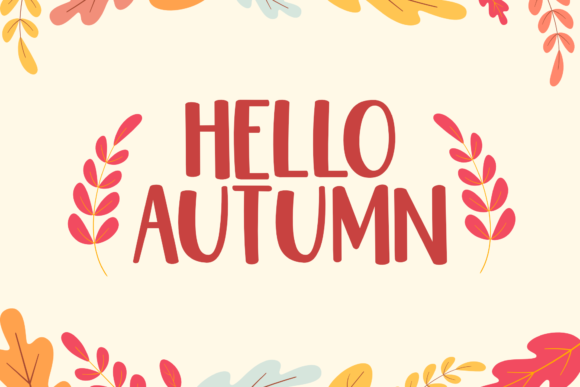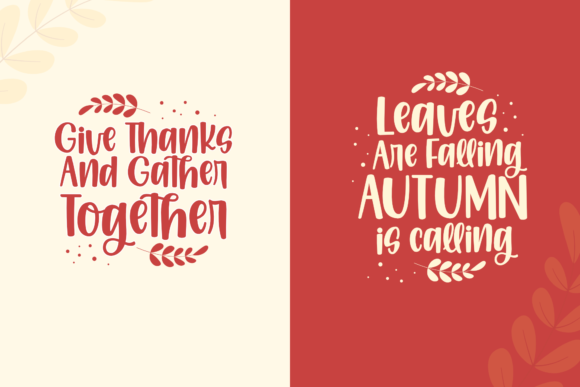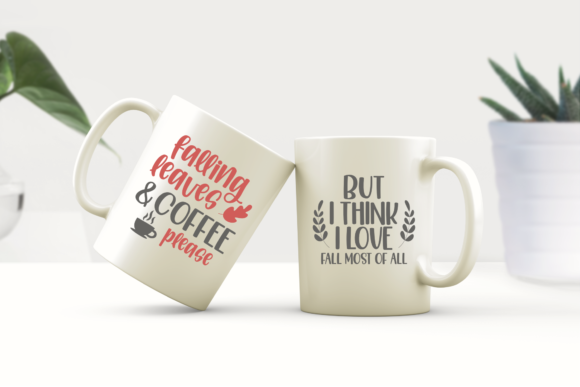
Thanks November Font
Thanks November is a playful and chic handwritten font. Whether you are using it for cartoon-related designs, children games, quotes, titles, brand names, book covers, posters, or just any creation that requires a touch of joy, this font is a great choice.